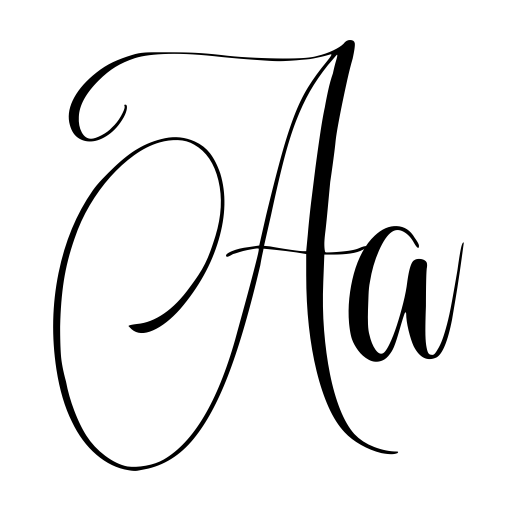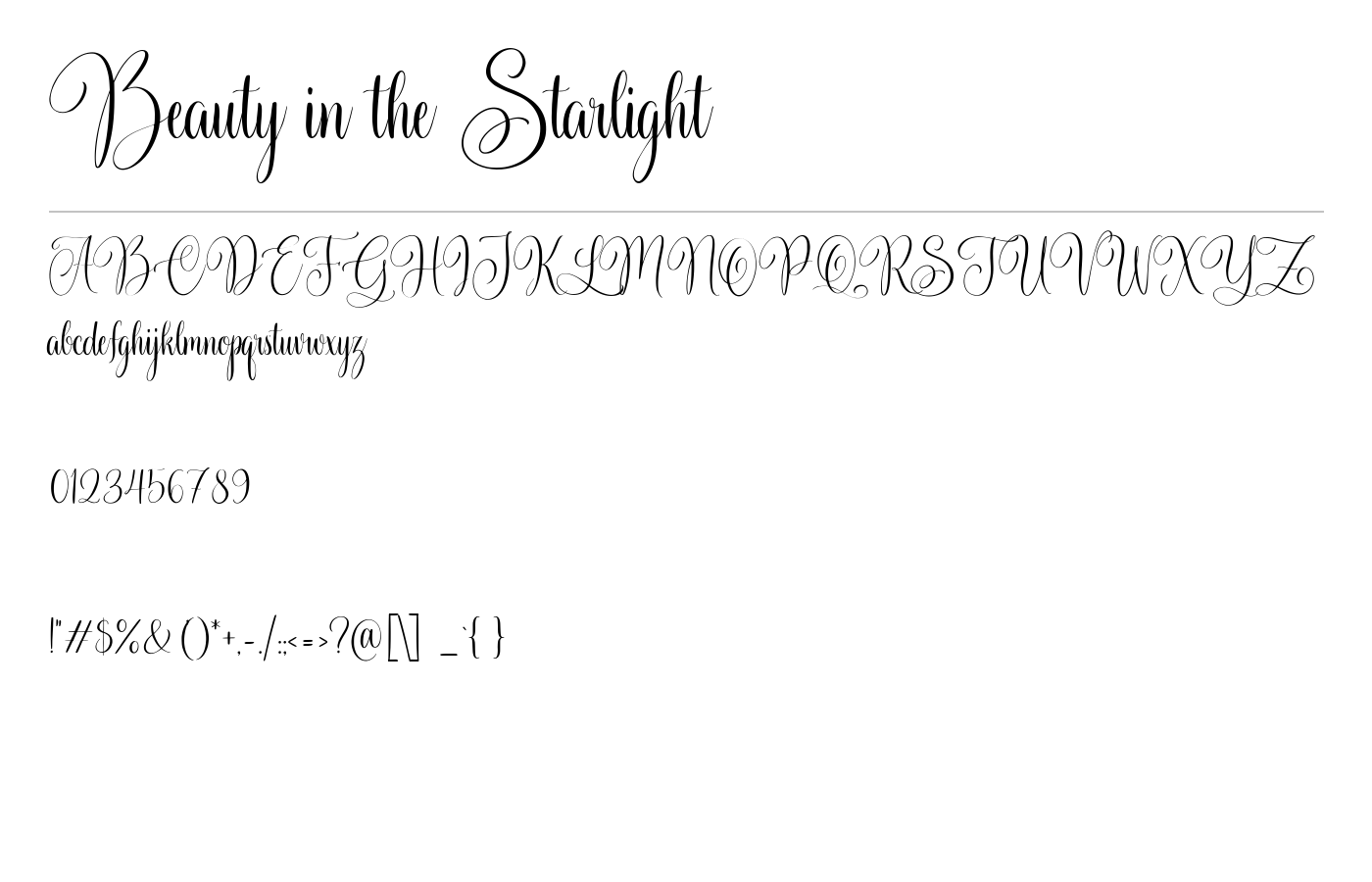
Beauty in the Starlight is an elegant script font characterized by its delicate, flowing strokes and ornamental swashes that give it a sophisticated, decorative feel. With its tall, slender letterforms and refined, calligraphic style, this font is perfect for creating romantic, luxurious designs such as wedding invitations, upscale branding, and graceful headlines. Its light weight and stylish flourishes make it ideal for adding a touch of beauty and charm to projects that seek a graceful, whimsical personality.
Beauty in the Starlight Font
About Beauty in the Starlight Font